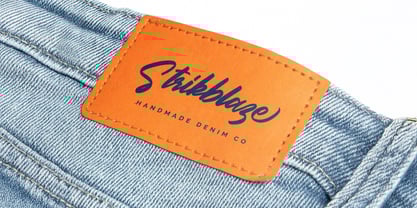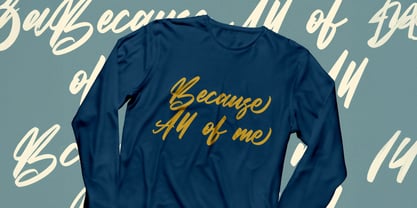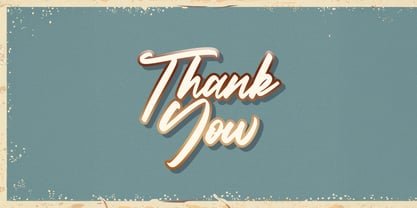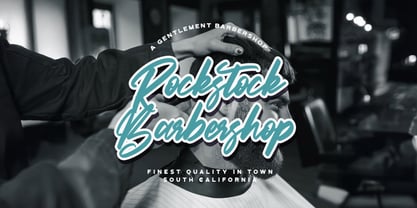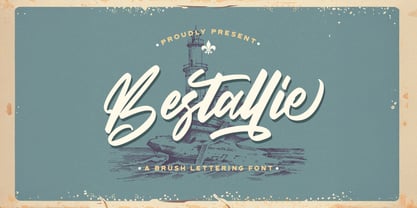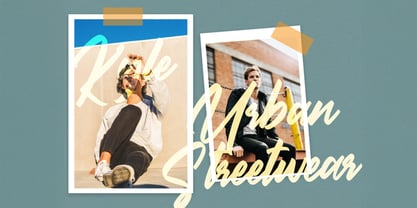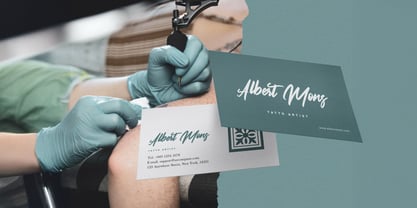
The Bestallie Font Family was designed by Virgiawan Listanto and published by Stringlabs Creative Studio. Bestallie contains 1 styles. More about this family
Bestallie is a dynamic bold script font designed to make a strong and memorable impression. Its confident, flowing letterforms and impactful presence are perfect for headlines, branding, packaging, and any design that needs a touch of energetic elegance and a vibrant personality.
Designers: Virgiawan Listanto
Foundry: Stringlabs Creative Studio